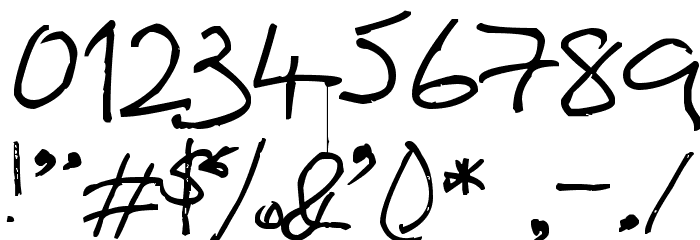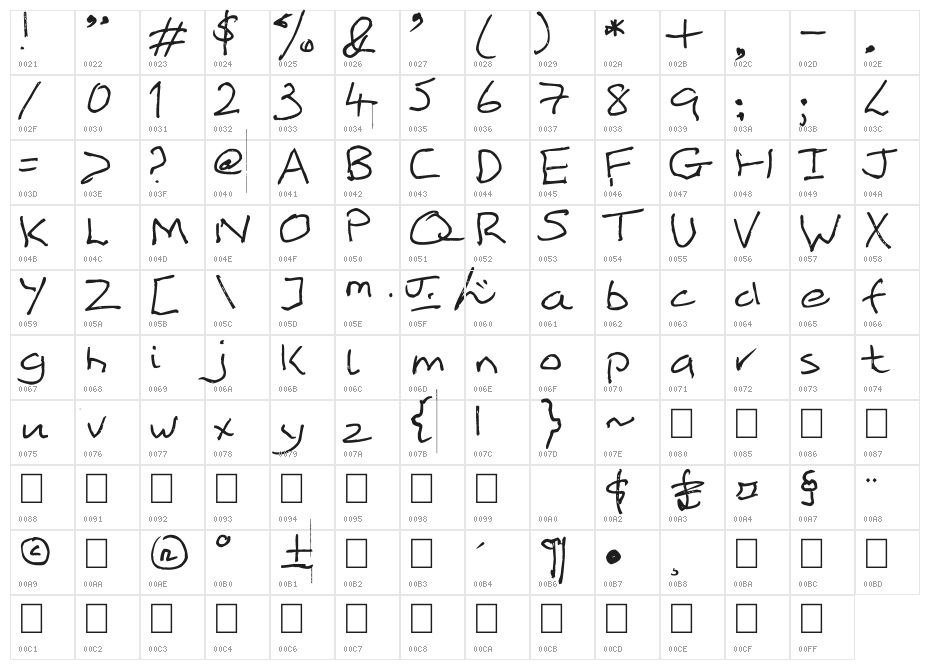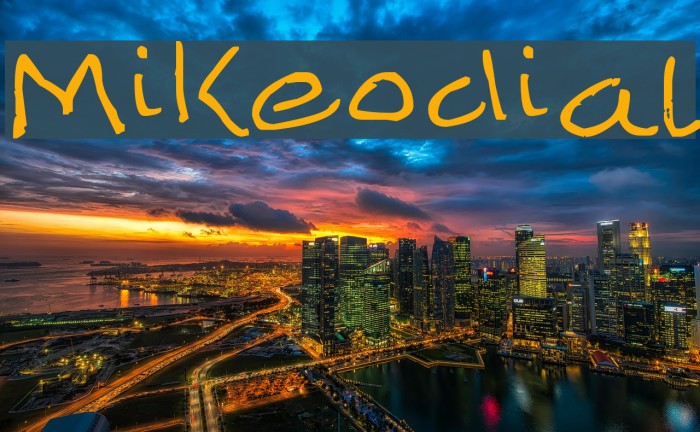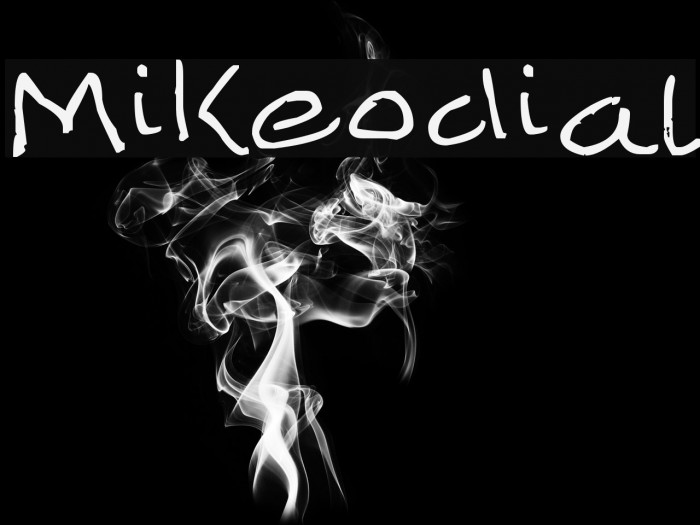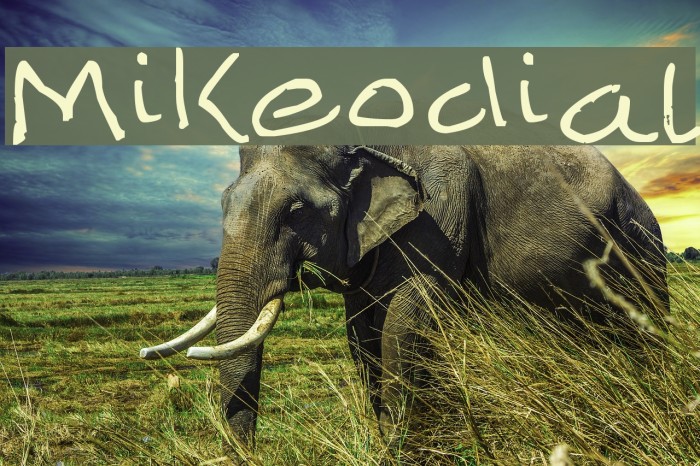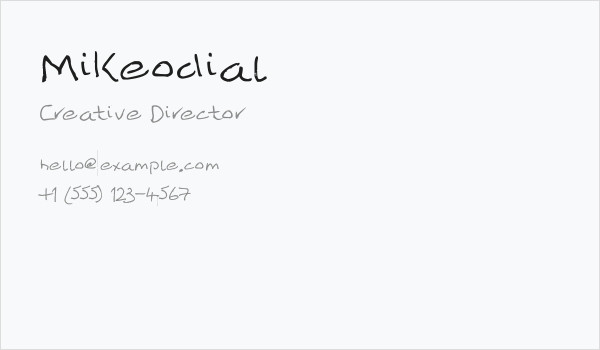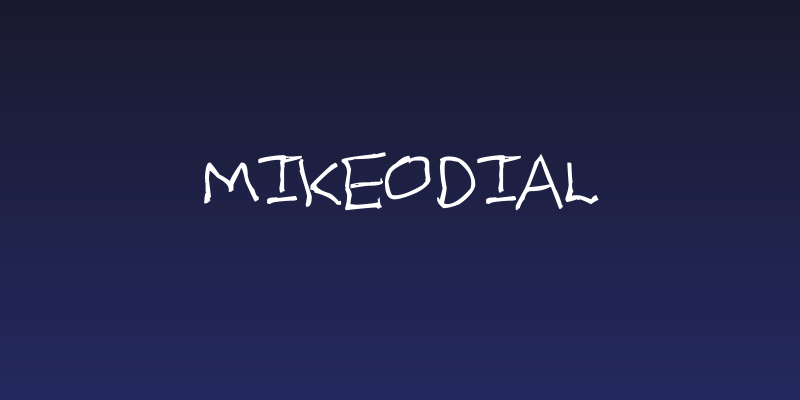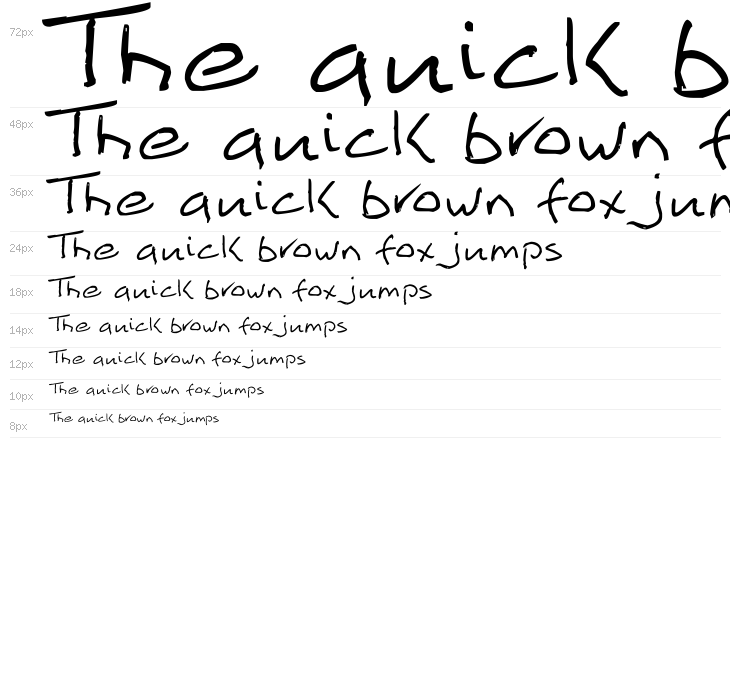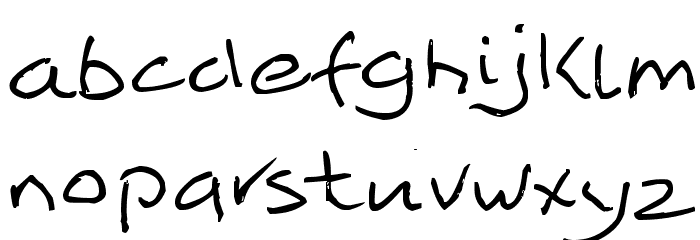
Mikeodial Font
Mikeodial Description
This font exudes a casual and informal vibe, reminiscent of handwritten notes with a slightly messy yet charming appearance. The letters are unevenly spaced and vary in size, adding to the handwritten aesthetic. The strokes are bold and confident, with a noticeable variation in thickness that gives the font a dynamic and lively feel. The uppercase and lowercase letters maintain a consistent style, while the numerals and special characters are equally expressive, enhancing the font's playful nature. This font is perfect for projects that require a personal touch or a relaxed, approachable look.
| Proposed Projects | Ideal for greeting cards, personal notes, informal invitations, and creative projects that require a personal touch. |